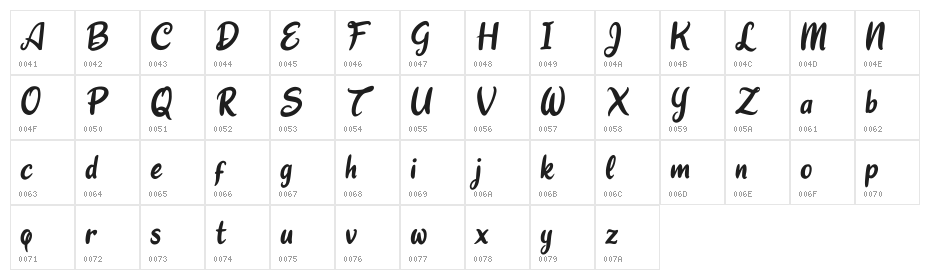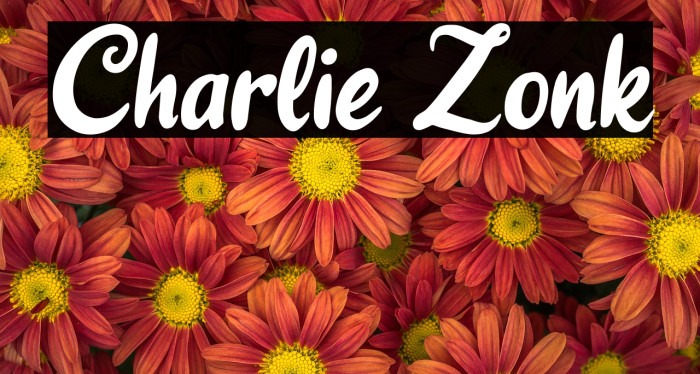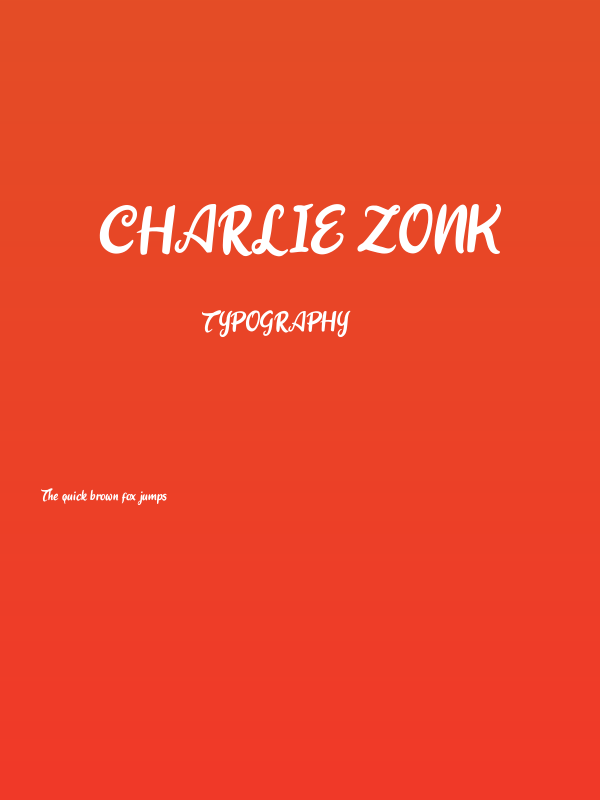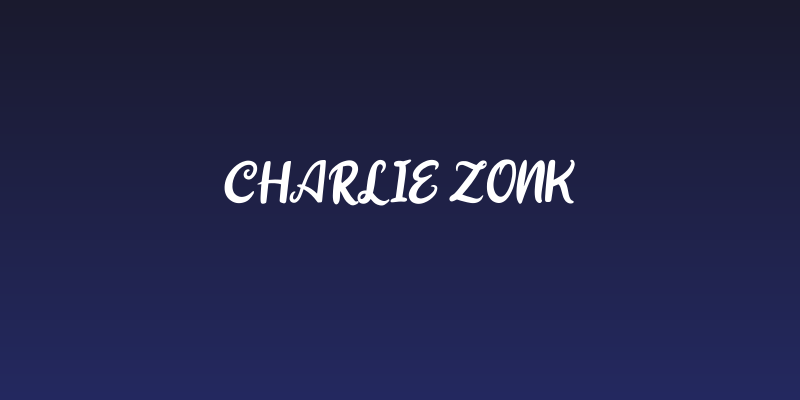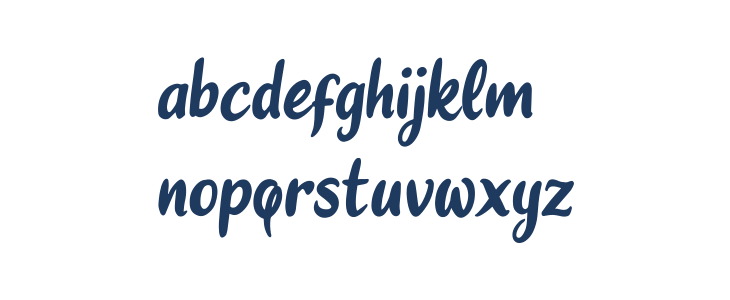
Charlie Zonk Font
Charlie Zonk Description
This font features a playful and dynamic script style, characterized by its bold and flowing strokes. The letters are interconnected, giving a sense of continuity and movement. The uppercase letters have a distinctive flair with exaggerated curves, while the lowercase letters maintain a consistent rhythm. The overall appearance is lively and energetic, making it suitable for creative and informal applications. The font's design includes a moderate contrast in stroke thickness, adding to its legibility and visual appeal.
| Proposed Projects | Ideal for greeting cards, invitations, branding, and playful advertising campaigns. |